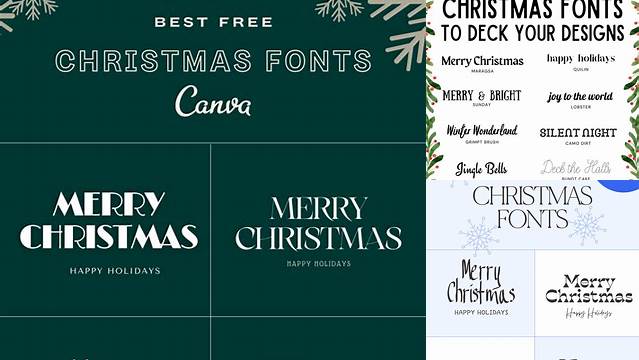
Festive Fonts: Christmas Fonts Ready On Canva
Hey guys! Getting ready for the most wonderful time of the year? Of course, you are! And if you're like me, you're already thinking about all the creative projects you can dive into this Christmas season. From holiday cards to social media posts, the right font can make all the difference. So, let's talk about Christmas fonts that are already waiting for you on Canva. Yes, you heard that right! No need to hunt around the web – Canva has got you covered. Let's explore these festive fonts and how you can use them to spread some holiday cheer!
Understanding the Importance of Fonts in Christmas Designs
When it comes to Christmas designs, choosing the right font is crucial. Think about it – the font is the voice of your message. A playful, whimsical font can evoke a sense of childlike wonder, while a classic, elegant font can add a touch of sophistication. The fonts you choose play a significant role in communicating the overall feeling and theme of your project. Imagine using a super serious, corporate font on a Christmas card – it just wouldn't feel right, would it? The right Christmas fonts help capture the spirit of the season, making your designs more engaging and memorable. So, before you start designing, take a moment to consider what kind of mood you want to create and choose your fonts accordingly. It’s all about making that festive impact!
Overview of Canva's Font Library for Christmas
Canva, being the amazing design tool it is, offers a massive font library that includes a fantastic selection of Christmas fonts. Whether you're looking for something traditional, modern, script-based, or bold, Canva’s got you covered. Navigating Canva's font library is super easy too! You can browse through various categories, search by name, or even filter fonts based on style. What’s really cool is that Canva constantly updates its font collection, so you'll always find something new and exciting to play with. Plus, they offer both free and premium fonts, giving you tons of options regardless of your budget. We’ll dive deeper into some specific Christmas fonts you can find on Canva later, but for now, just know that you have a treasure trove of festive typography at your fingertips. Get ready to unleash your creativity!
Classic Christmas Fonts on Canva
If you're aiming for a timeless, traditional Christmas vibe, Canva has some amazing classic Christmas fonts to choose from. Think elegant serifs and flowing scripts that evoke the charm of vintage holiday cards and decorations. Fonts like 'Cinzel Decorative' or 'Playfair Display' are fantastic choices for headings and titles, giving your designs a touch of sophistication. For body text, you might want to consider something like 'Lora' or 'Merriweather', which are easy to read and have a classic feel. These fonts work beautifully for formal invitations, heartfelt letters, and anything else where you want to convey a sense of tradition and warmth. Remember, classic doesn't mean boring – these Christmas fonts are timeless for a reason! They bring a sense of familiarity and comfort that perfectly complements the holiday season.
Modern Christmas Fonts Available on Canva
Maybe you’re going for a more contemporary and sleek Christmas aesthetic? No problem! Canva has a great selection of modern Christmas fonts that can help you achieve that minimalist, chic look. Think clean sans-serif fonts and bold, geometric designs. Fonts like 'Montserrat', 'Open Sans', or 'Raleway' are excellent choices for a modern feel. They're versatile, easy to read, and work well in a variety of designs, from social media graphics to website banners. If you want to add a touch of playfulness while keeping it modern, consider using a slightly rounded sans-serif like 'Nunito'. These Christmas fonts are perfect for creating a fresh, contemporary holiday vibe. So, ditch the frills and embrace the clean lines for a stylish Christmas season!
Script and Calligraphy Fonts for Christmas on Canva
For that extra touch of elegance and flair, script and calligraphy Christmas fonts are the way to go! Canva offers a beautiful range of these fonts, perfect for adding a personal and handcrafted feel to your designs. Imagine using a delicate script font for a Christmas card greeting or a bold calligraphy font for a festive banner. Fonts like 'Great Vibes', 'Pacifico', or 'Lobster' are popular choices for their graceful curves and unique character. Keep in mind that script fonts can sometimes be a bit harder to read in large blocks of text, so it's best to use them sparingly – maybe for headings or short phrases. But when used correctly, these Christmas fonts can add a touch of magic and sophistication to your holiday projects. Time to get your calligraphy on!
Bold and Display Fonts for Eye-Catching Christmas Designs
Need to make a statement this Christmas? Then you’ll want to explore Canva’s bold and display Christmas fonts. These fonts are designed to grab attention and make your message pop. Think chunky serifs, strong sans-serifs, and other unique typographic styles. Fonts like 'Bebas Neue', 'Impact', or even a festive decorative font like 'Luckiest Guy' can be perfect for headlines, posters, and any design where you want to make a big impact. Bold fonts are great for creating a sense of excitement and energy, which is exactly what you want during the holidays! Just be sure not to overuse them – too much boldness can be overwhelming. Use these Christmas fonts strategically to highlight key messages and add some visual punch to your designs.
Decorative and Themed Christmas Fonts on Canva
Now, let's talk about the really fun stuff – decorative and themed Christmas fonts! Canva has a bunch of these, perfect for adding a whimsical and festive touch to your projects. These fonts often incorporate holiday elements like snowflakes, ornaments, or even Santa Claus himself! While they might not be suitable for every design, they can be absolutely perfect for things like children's Christmas cards, festive social media graphics, or fun event invitations. Fonts like 'Mountains of Christmas' or 'Walter Turncoat' are great examples of themed Christmas fonts that can add a unique and playful vibe. Just remember to use them sparingly and make sure they complement the overall design. But when you want to inject some serious holiday cheer, these fonts are your secret weapon!
How to Find Christmas Fonts on Canva Easily